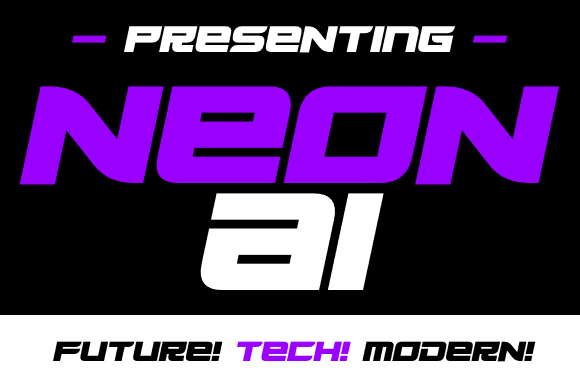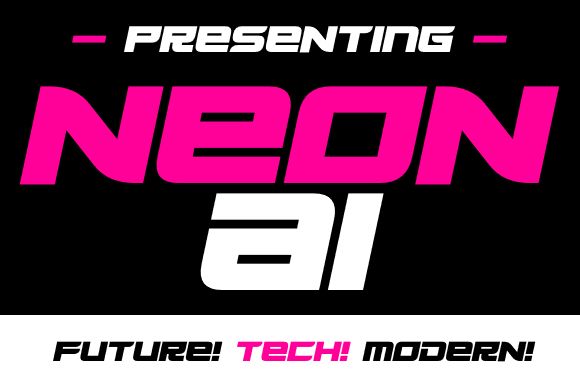
Introduction to Neon Ai Font Font
Fonts play a crucial role in design, and the Neon Ai Font font is a typeface that brings both character and versatility to any project. Whether you’re working on a branding project, a website, or a print design, the Neon Ai Font font offers a unique style that can elevate your work.
A slick, stylish font that combines hard edges and smooth curves to give a futuristic, modern style.
Perfect for high-tech themes, modern music, science fiction stories, and general title use .
Key Features of Neon Ai Font Font
Why Choose Neon Ai Font Font?
The Neon Ai Font font is more than just a typeface – it’s a design tool that helps you communicate your message with style and clarity. Its unique character set and versatile design make it suitable for a wide range of applications, from elegant invitations to bold headlines.
With its carefully crafted letterforms and balanced proportions, the Neon Ai Font font ensures readability and visual appeal across all mediums.
What makes Neon Ai Font font special?
The Neon Ai Font font stands out with its unique design, exceptional readability, and versatility across various design applications.